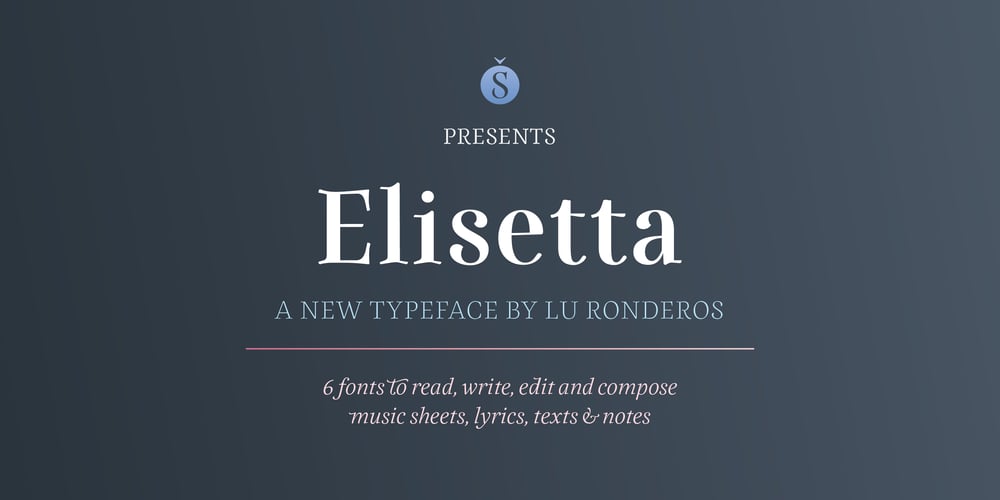
Elisetta
Elisetta font
Elisetta Font Family was designed by Lucía Ronderos and published by Sudtipos. Elisetta contains 6 styles and family package options. Musical notes and letterforms, silences and white spaces, pentagrams and lines, music and writing have much in common and go beyond time, cultures, styles and locations. This new typeface emerges from the blend between the lyrics and the harmony, rhythm, femininity and luminosity of the traditional musical forms. It`s not about blues or rock, tango or salsa, instead it recovers the neoclassical characteristics of the current musical notation system and revitalize the essence of its signs. Taking care of both the function and the form, Elisetta has been specially designed for the writing of texts and musical sheets considering all its elements and communication needs. This source of inspiration also makes the font really good for extensive texts, since its design is based on situations that require high line performance, great readability and high aesthetic coherence. With 5 variables that vary in weight and style, the typography gathers asymmetry and organic nature in vertical structure, narrow horizontal proportions, high x height and extreme contrast between black and white. Elisetta Book has been created for the writing of clear texts and long lines composed in small sizes inside and outside the pentagram; Elisetta Italic intensifies the organic nature of the musical keys by offering softer signs, contextual alternates and initial caps; finally, Elisetta Display increase and emphasize the contrast between vertical stems and horizontal lines to highlight short texts and titles. For those who love music and for those who like romantic forms, this typography has a lot to offer: Elisetta is the best option to write light words with style, compose clear and rhythmic lines and read comfortable paragraphs with high performance. You can tell everybody this is your font, how wonderful life is while you’re in the world! * This typeface was originally designed and supervised as «Elisa», the main project of the Master in Typography at University of Buenos Aires, Argentina.